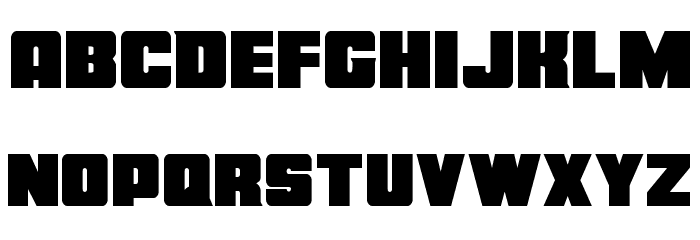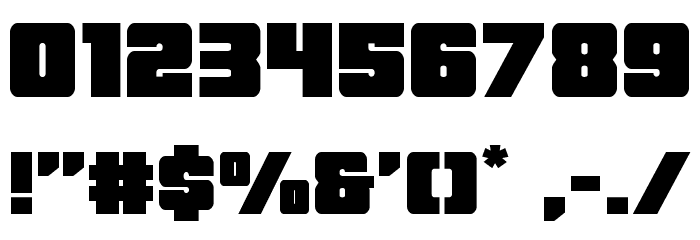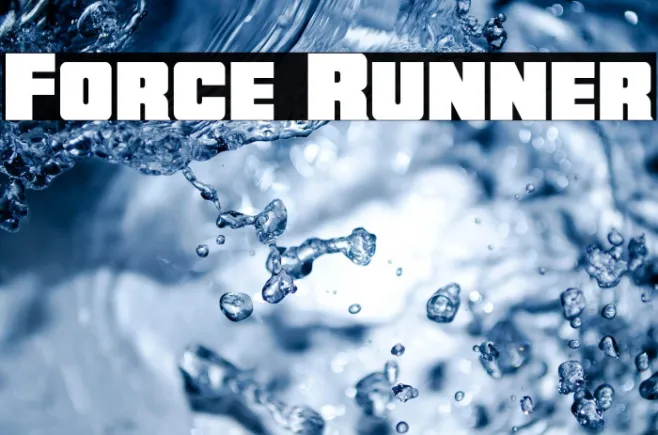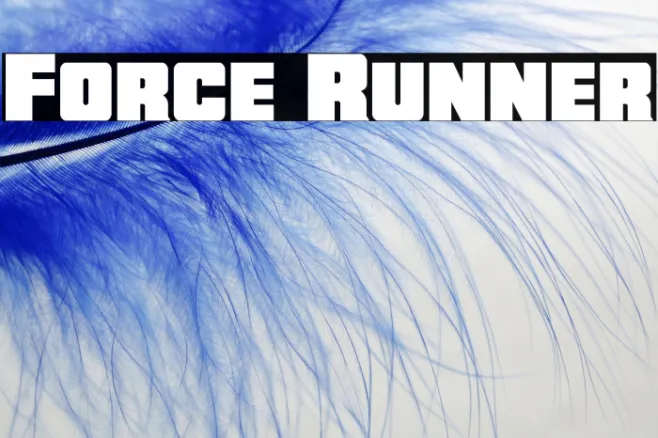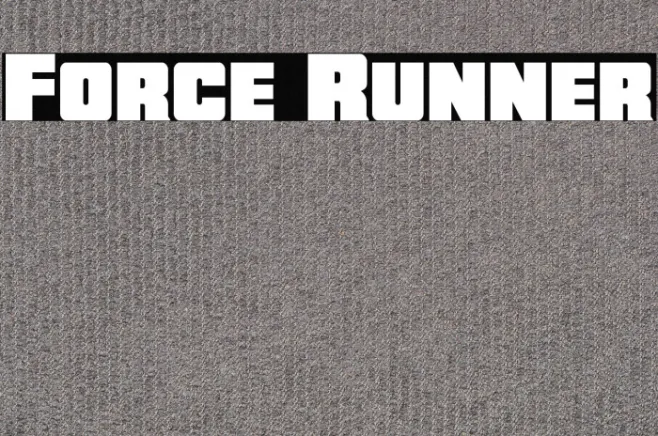
Force Runner Font
This bold and impactful font features a strong, geometric design with thick, uniform strokes. The characters are blocky and robust, giving a sense of power and stability. The uppercase letters are particularly striking, with a consistent height and width that create a cohesive look. The numbers and special characters maintain the same boldness, ensuring readability and emphasis. This font is ideal for making a statement, with its high contrast and wide character spacing that enhance its legibility and visual appeal.
A bold, geometric font with strong, uniform strokes and high contrast.
- Font: Force Runner
- Proposed Projects: Perfect for sports branding, posters, headlines, and any project needing a strong, impactful typeface.
- Character Spacing: Wide